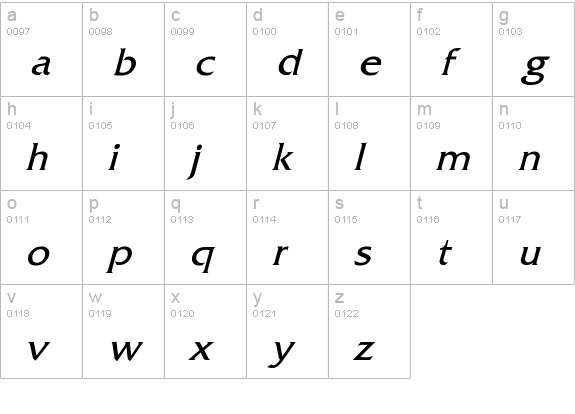
Whitethorning Italic Font Details
Whitethorning Italic is a distinctive, italic variant in the Whitethorning typeface family \xE2\x80\x94 well suited to design and typography projects.
Introducing Whitethorning Italic, a captivating typeface that effortlessly combines elegance and modernity. This font exudes a sense of sophistication with its delicate curves and refined letterforms, making it the perfect choice for projects that require a touch of gracefulness. Whitethorning Italic is a versatile font that can be used in a wide range of design applications. Whether you are creating a logo, designing a website, or working on a branding project, this font will add a distinctive and polished look to your work. What sets Whitethorning Italic apart from other fonts is its unique italicized style. The slanted letterforms create a sense of movement and dynamism, adding a touch of flair to any design. This font is perfect for conveying a sense of energy and excitement, making it ideal for projects that require a bold and eye-catching aesthetic. One of the best parts about Whitethorning Italic is that it is available for free download at FontsMarket.com. This means that you can easily access this stunning font without breaking the bank. So whether you are a professional designer or a hobbyist, you can elevate your work with this beautiful typeface without spending a dime. With its timeless elegance and modern twist, Whitethorning Italic is a font that will truly make your designs stand out. Download it today from FontsMarket.com and unleash your creativity with this freely available gem.